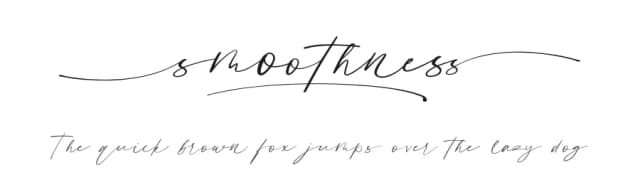
About Checkpoint Font
Checkpoint feels equally sophisticated and asymmetrical. It looks stunning on wedding invitations, thank you cards, quotes, greeting cards, logos, business cards, and every other design which needs a customized touch.
Checkpoint Font is a script font that shines as a display or heading face. Pair it with a clean sans-serif or serif font for body text β the contrast creates a clear hierarchy while the two styles stay balanced and easy to read.
Checkpoint Font